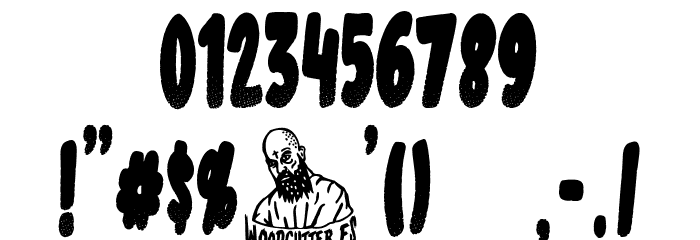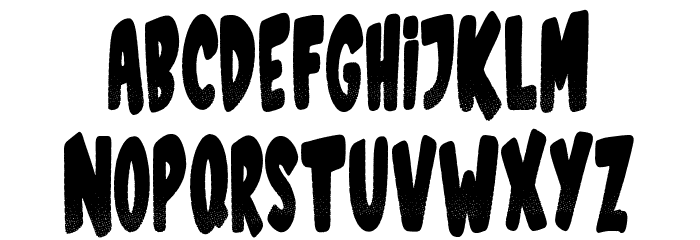
Sports Magazine Font
Sports Magazine Description
This font features bold, rounded characters with a playful and dynamic style. The letters are thick and slightly irregular, giving them a hand-drawn appearance. The uppercase and lowercase letters maintain a consistent weight, while the numbers and special characters complement the overall design. The font's texture adds a unique touch, making it stand out in any design project. Its boldness and character make it suitable for eye-catching headlines and creative displays.
| Overall Style | Playful, Dynamic |
| Proposed Projects | Ideal for sports magazines, posters, branding, and any project requiring a bold, dynamic look. |